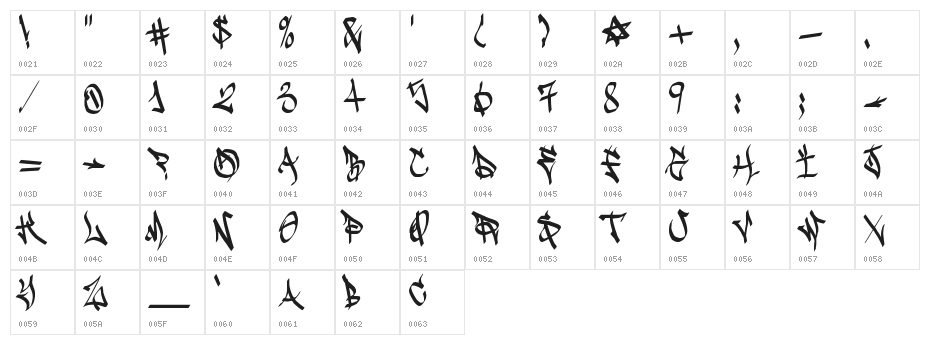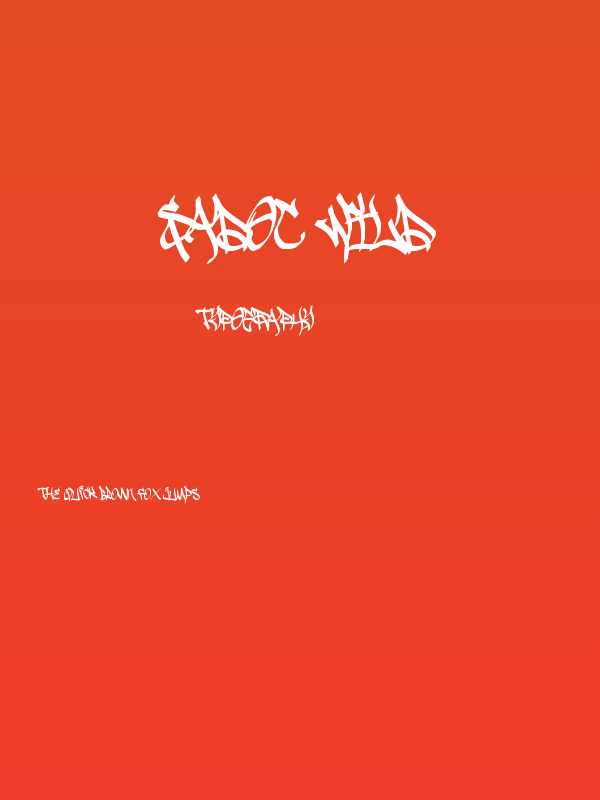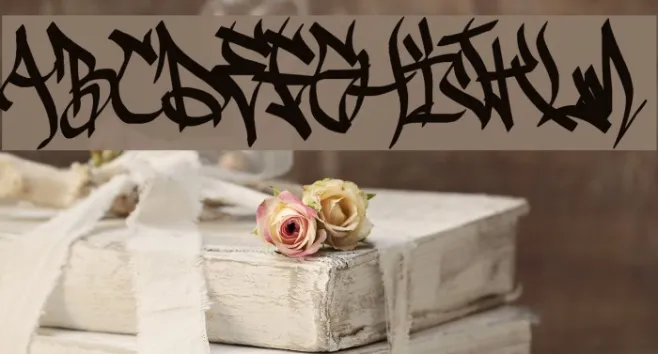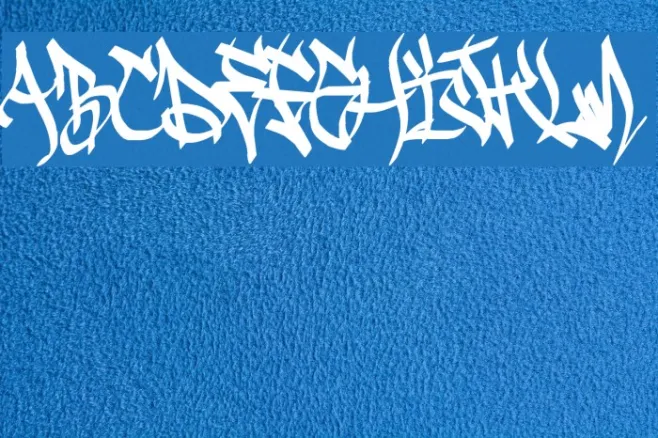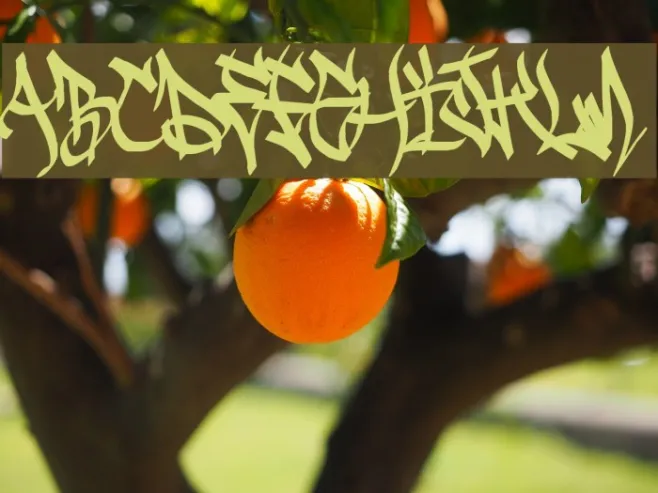
Sadoc Wild Font
Sadoc Wild Description
This font exhibits a bold and dynamic graffiti style, characterized by its sharp, angular lines and energetic strokes. The letters are highly stylized, with exaggerated curves and points that create a sense of movement and intensity. The uppercase and lowercase letters maintain a consistent aesthetic, while the numbers and special characters integrate seamlessly with the overall design. This font's unique and edgy appearance makes it stand out, capturing attention with its rebellious and artistic flair.
| Overall Style | Modern, Urban |
| Use Case | Logos, Posters, Headlines |
| Proposed Projects | Ideal for street art projects, urban-themed designs, music album covers, and edgy branding. |